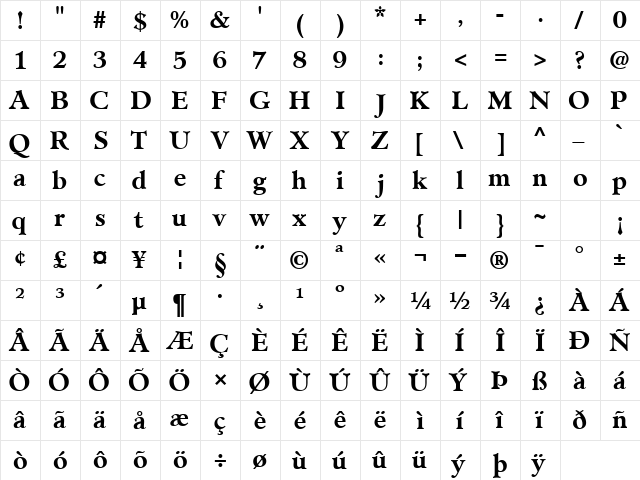
ClericSSK Bold
Design Context for ClericSSK Typeface
ClericSSK offers clean, dependable letterforms without strong stylistic allegiance, making it a practical choice for designers who need flexibility. Its bold stroke weight gives it real presence on the page.
Pro Tip: Pair ClericSSK with a font of contrasting weight or personality to build a more expressive typographic hierarchy.